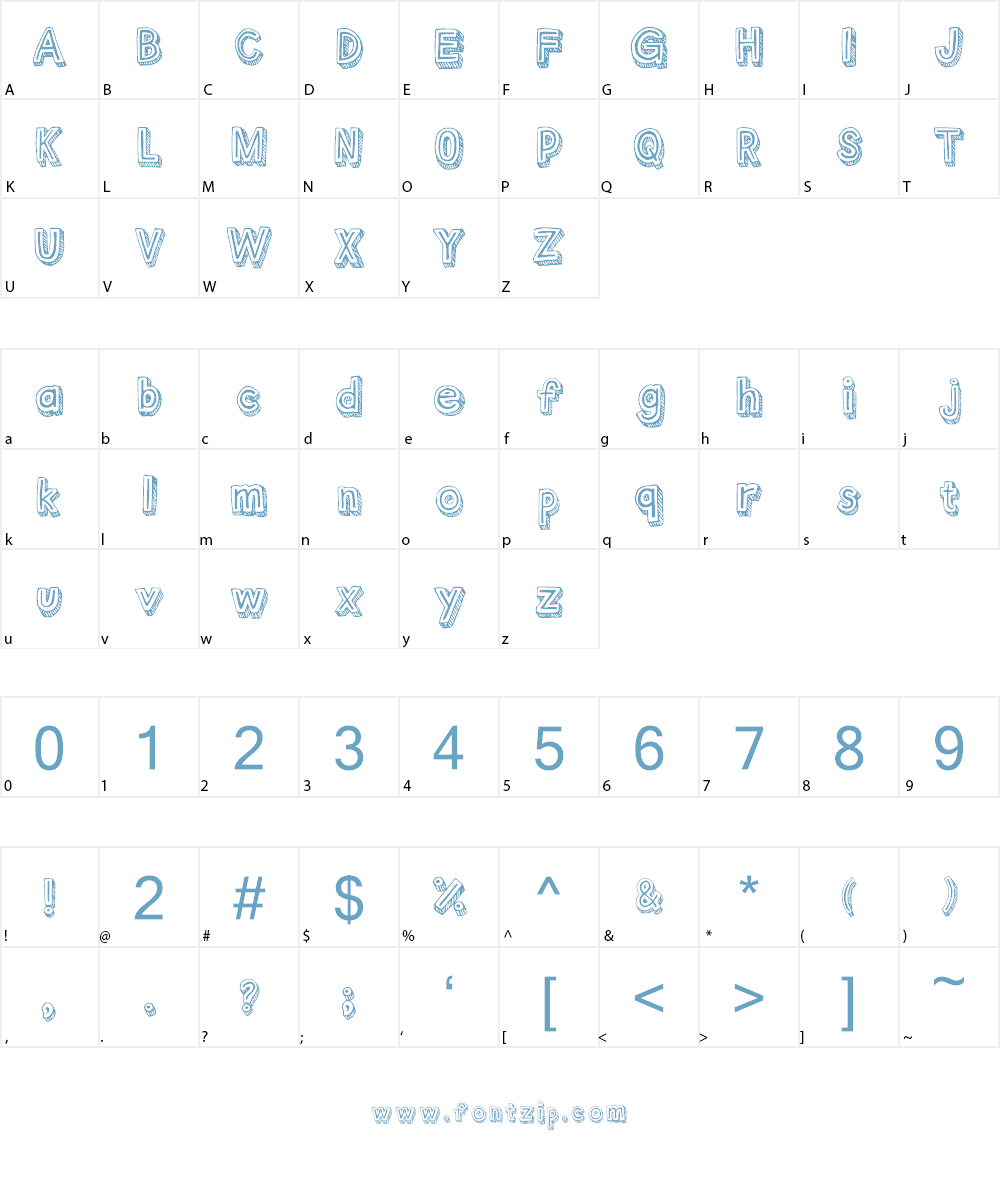
This is a fun font that you can use to liven up your text. It's done by freehand so it has a folksy feel to it. Try it all caps to make a bold statement!